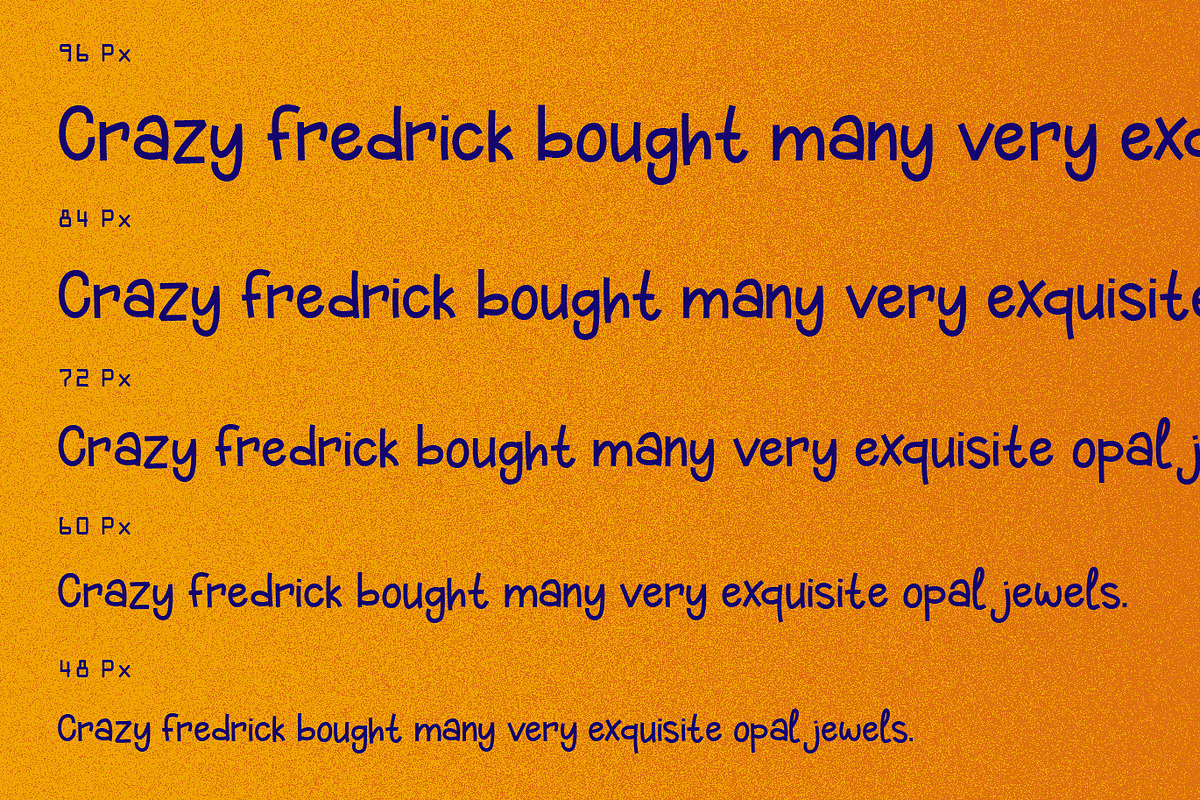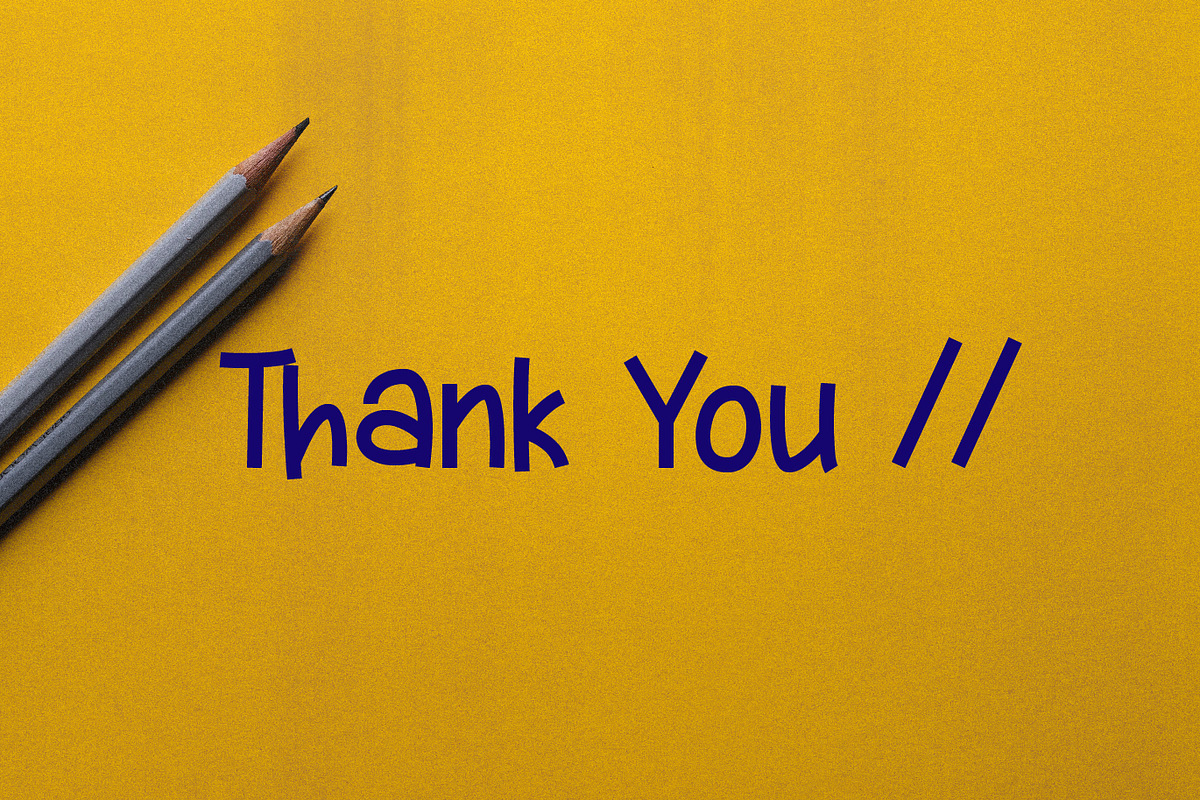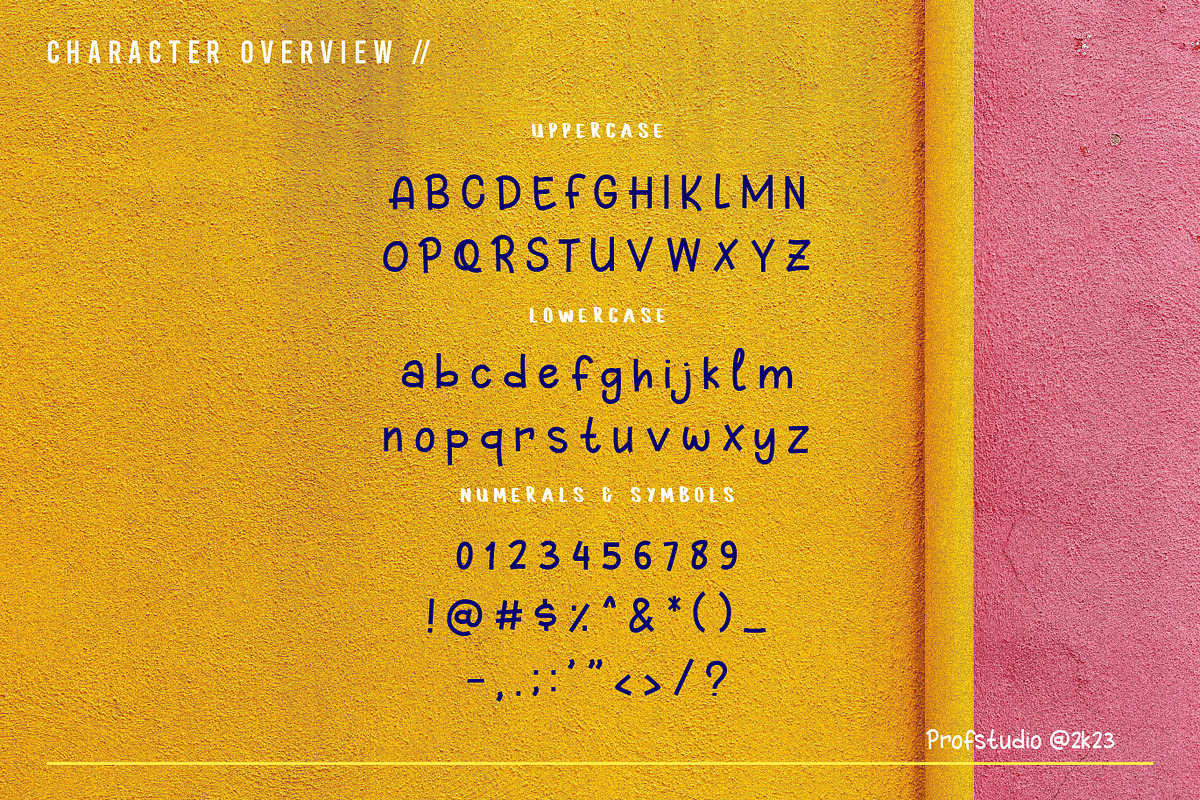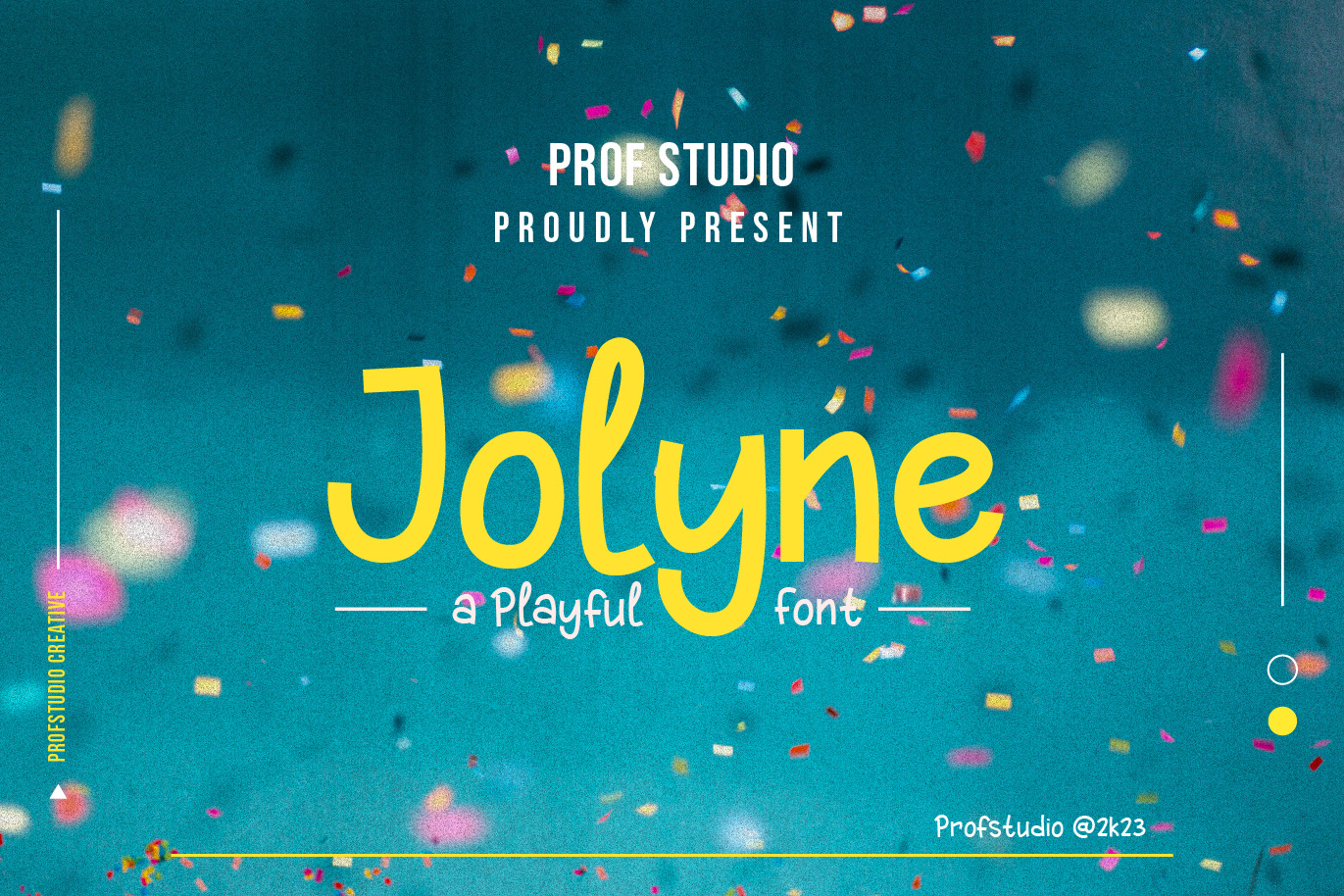
Jolyne - Handwritten Playful Font
Hi Ladies and Gentleman ! Proudly present Handwritten Playful Font “Jolyne” for your business.
Jolyne - Handwritten Playful Font which can be interpreted professional. we keep this font looks Modern, Playful, readable, stylish, catchy and easy to use.
Jolyne - is the great choice for event design ,logo and many other design project. Jolyne here to make your work to high level!!!